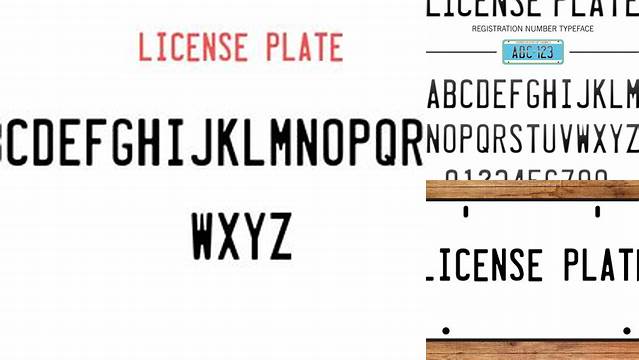
Free License Plate Font: Download & Design Guide
Hey guys! Ever wondered about the cool fonts you see on license plates? You know, those unique typefaces that scream "official" and "road-ready"? Well, you're in luck because we're diving deep into the world of license plate fonts, offering you the free download options and a guide to customizing them. Whether you're a graphic designer, a hobbyist, or just plain curious, this is your ultimate resource. So, buckle up, because we're about to hit the road of typography!
What Exactly IS a License Plate Font? Why You Need One
Let's start with the basics. A license plate font is a specific typeface designed to be easily readable at a distance, under various conditions. Think about it: these fonts need to be clear, even when viewed from a moving vehicle or in less-than-ideal lighting. They're engineered for legibility and often feature distinctive characteristics like consistent stroke weights, open counters, and a slightly condensed form. These features make them ideal for any application requiring clear identification and quick recognition.
Why would you need a license plate font? Well, the applications are surprisingly diverse. If you're working on a project involving vehicles, from designing car wraps to creating digital mockups, this font is your secret weapon. Are you designing a retro-themed project? Maybe a movie poster or game graphic? A license plate font adds an authentic touch that can't be replicated. The font can transport your project to a specific time and place. It's all about achieving that specific vibe. Plus, they're just plain cool! License plate fonts have a certain aesthetic appeal that goes beyond their functional purpose. There's something undeniably appealing about their clean lines and straightforward design.
Beyond creative projects, you might need them for personal use. Perhaps you're making a sign for your garage or a personalized gift for a car enthusiast. Whatever your reason, having access to these fonts opens up a world of possibilities. The key is to have the right resources and know-how. That’s where this guide comes in. We'll show you where to find these fonts, how to download them, and how to customize them to fit your needs. We'll cover everything from the best free fonts available online to the practicalities of using them in your designs. So, keep reading to unlock all the secrets!
Top Spots for Free License Plate Font Downloads
- Google Fonts: While not specifically focused on license plate fonts, Google Fonts offers a library of open-source fonts that are free for both personal and commercial use. You might find some fonts that could serve your purpose or inspire you. Google Fonts is a reliable and trustworthy source of fonts.
When you're browsing these sites, search for terms like "license plate," "number plate," "highway," or "transportation." These keywords will help you narrow down your search and find the fonts you're looking for. Once you've found a font you like, read the licensing information carefully. This will tell you how you can use the font, whether it's free for personal use, commercial use, or if you need to give attribution.
Wrapping Up: Get Creative with Your Fonts!
That's it, folks! You've now got all the info you need to find, download, and customize your very own license plate fonts. From sourcing them for free download to tweaking them to perfection, you're well-equipped to create eye-catching designs that stand out. Now, go out there and get creative! Experiment with different styles, colors, and effects. Have fun, and most importantly, enjoy the process. Happy designing!